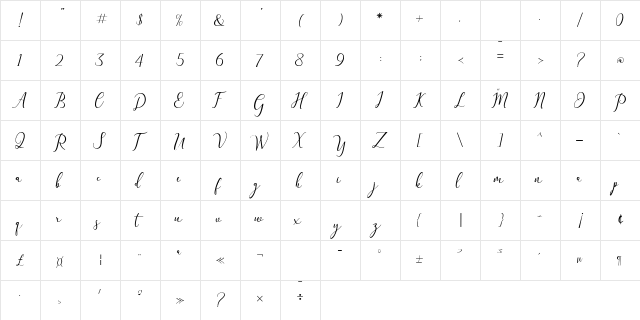
The Himalaya Regular
Design Context for The Himalaya Typeface
The Himalaya is a composed and adaptable typeface that performs quietly and consistently across a wide range of design contexts.